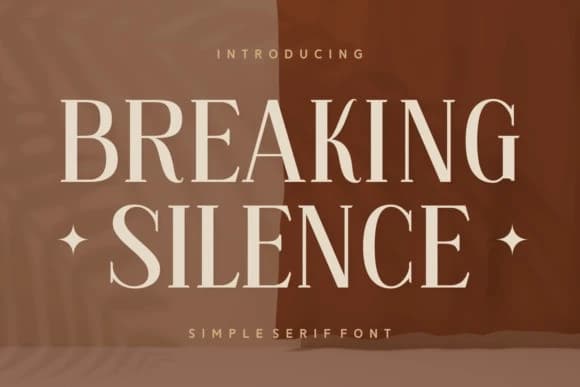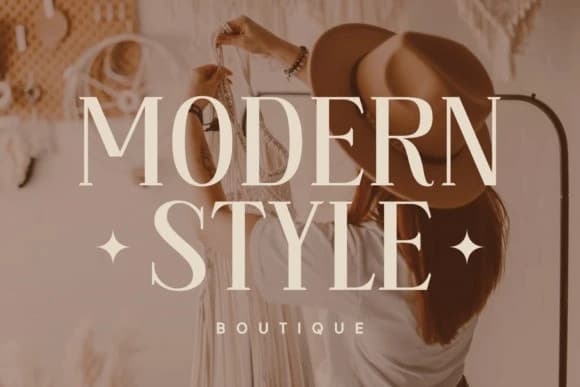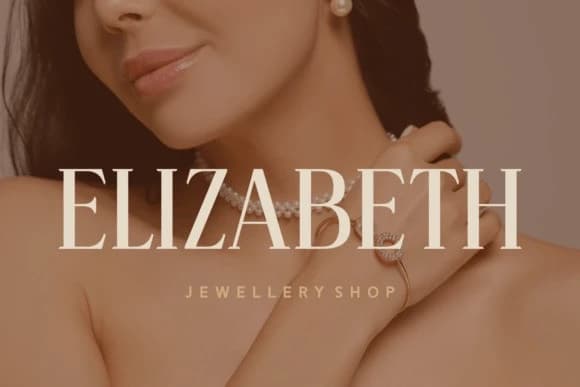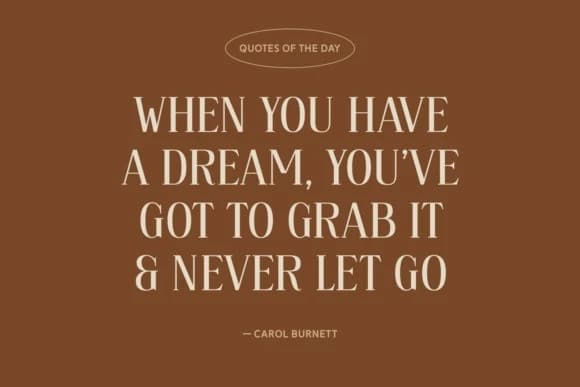
Breaking Silence Font
Breaking Silence Font, a distinct Serif Font that seamlessly marries elegance with modernity. Perfect for transforming your photographs, its unique accents enhance visual narratives with flair. Moreover, it intimates authenticity, making it ideal for apparel branding.